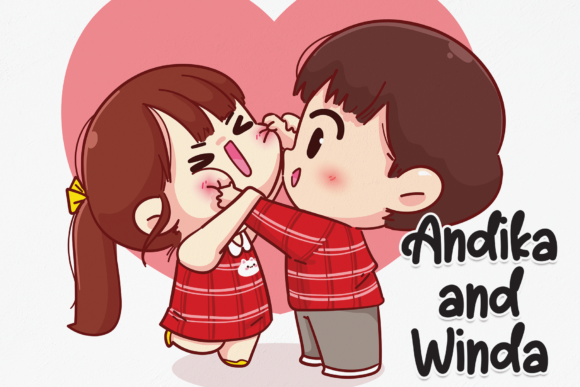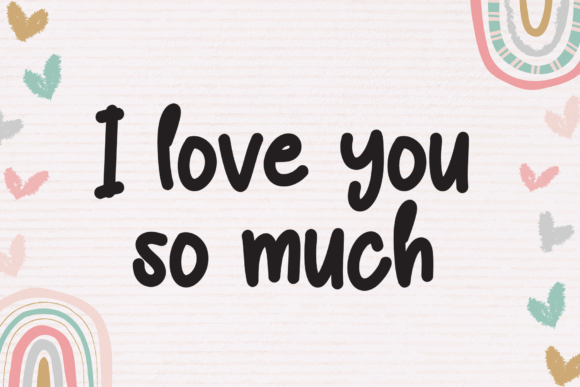
Christmas Cookies Font
db-ku.com - Script & Handwritten -- Christmas Cookies is a bold and cute handwritten font. With its stylish and friendly characters, this font is perfect for wall displays, wedding invitations, social media post logos, advertisements, product packaging, product designs, labels, photography, watermarks, invitations, stationery, and any other project that requires a handwritten taste.